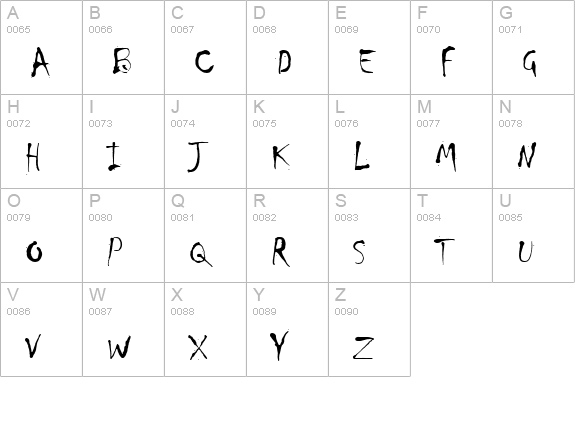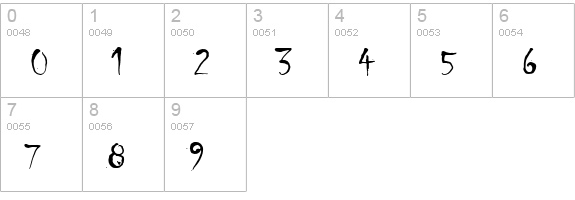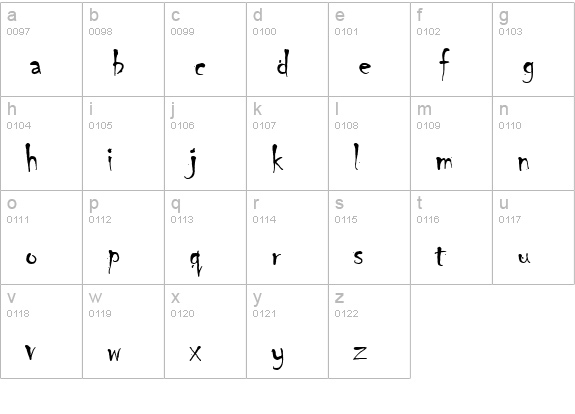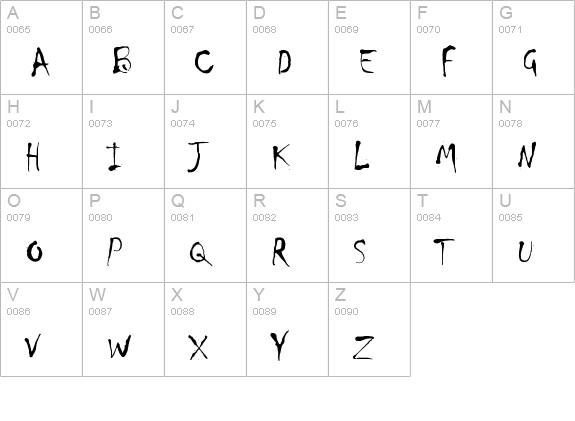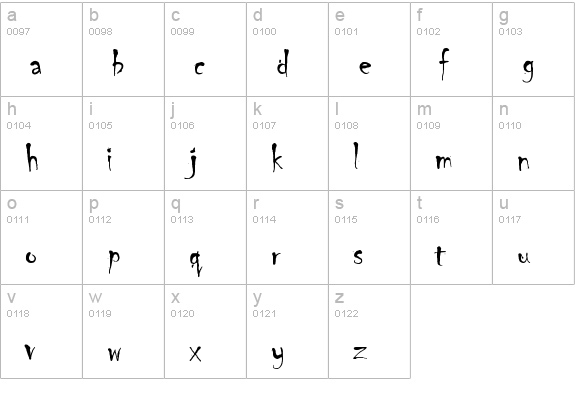
Chiller Font Details
Chiller font is a bold and edgy typeface that exudes a sense of mystery and intrigue. Its jagged letterforms give off a chilling vibe, perfect for creating spooky and thrilling designs. The unique design of Chiller font makes it stand out and adds a touch of drama to any project. The best part about Chiller font is that it is completely free! Yes, you read that right. You can download this captivating font for free at FontsMarket.com. Whether you're working on a Halloween-themed project, a horror movie poster, or simply want to add a touch of excitement to your design, Chiller font is the perfect choice. Don't miss out on the opportunity to enhance your designs with this striking and eye-catching font. Download Chiller font today and let your creativity run wild!